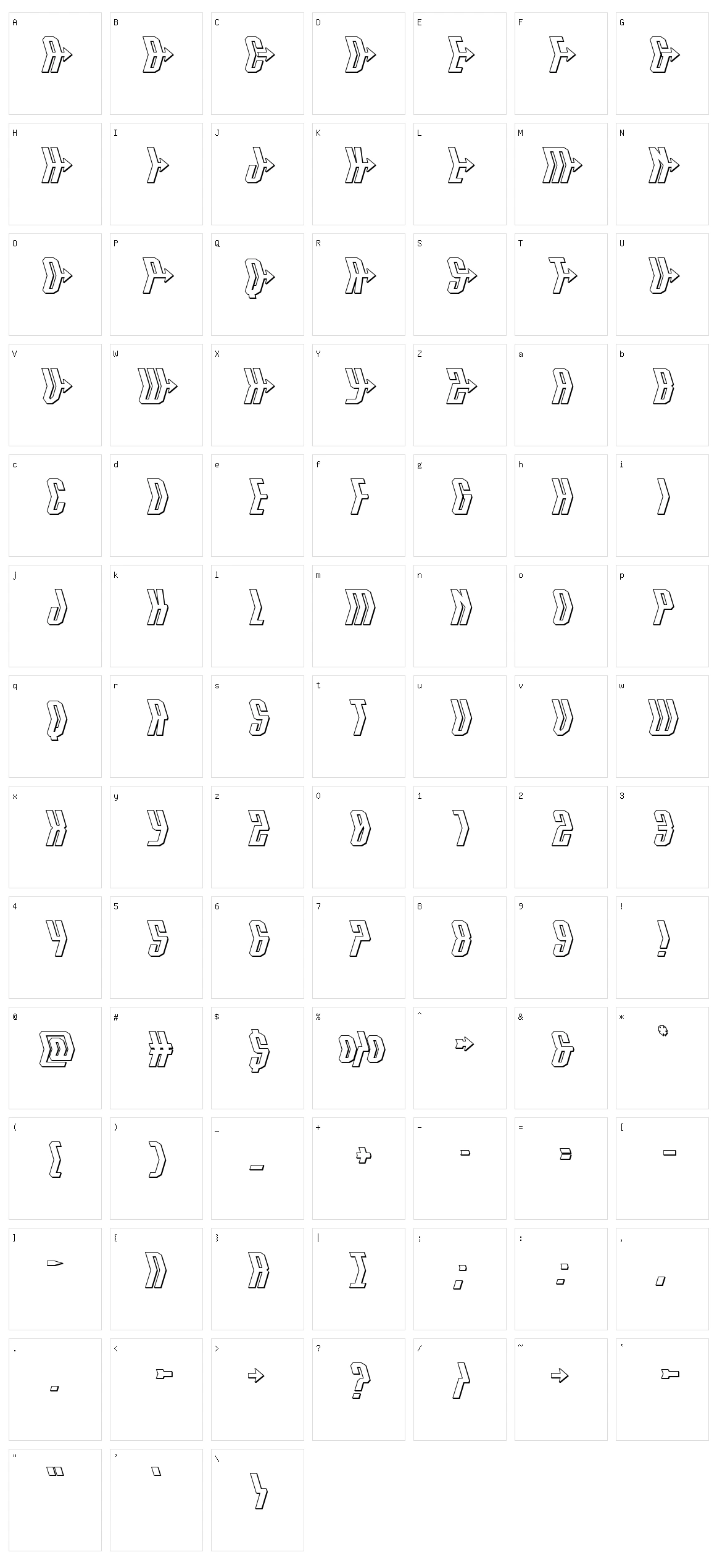
This font has special characters to add an arrow shaft and an arrowhead to letters to make text or a word look like an arrow is going through it from left to right.
The base font is "Crossbow Shaft" where each capital letter has the arrow shaft on the left of the character. These 15 versions are: Regular, Italic, Leftalic, 3D Italic, 3D Leftalic, Gradient, Halftone, Halftone Italic, Halftone Leftalic, Expanded, Expanded Italic, Expanded Leftalic, Epanded 3D and Expanded 3D Italic and Expanded 3D Leftalic.
The other 15 files are the same versions but are for the second base font, "Crossbow Head" where each capital letter has the arrowhead on the right of the character.
Note that you do not have to switch fonts in order to get the full arrow effect. Both base fonts, Shaft and Head, have their counterpart capital letters within each base font, and these can be found in the extended Latin character set - use of a character map program will assist in finding these characters.
So users can just use either the Crossbow Shaft or Crossbow Head font and still have access to all of the characters. However, for users who do not want to rely on using a character map, they can still get the same text effect by switching between the capital letters of the Crossbow Shaft and Crossbow Head fonts.
Also, if you want longer arrowheads and shafts, use the ` and ~ characters.